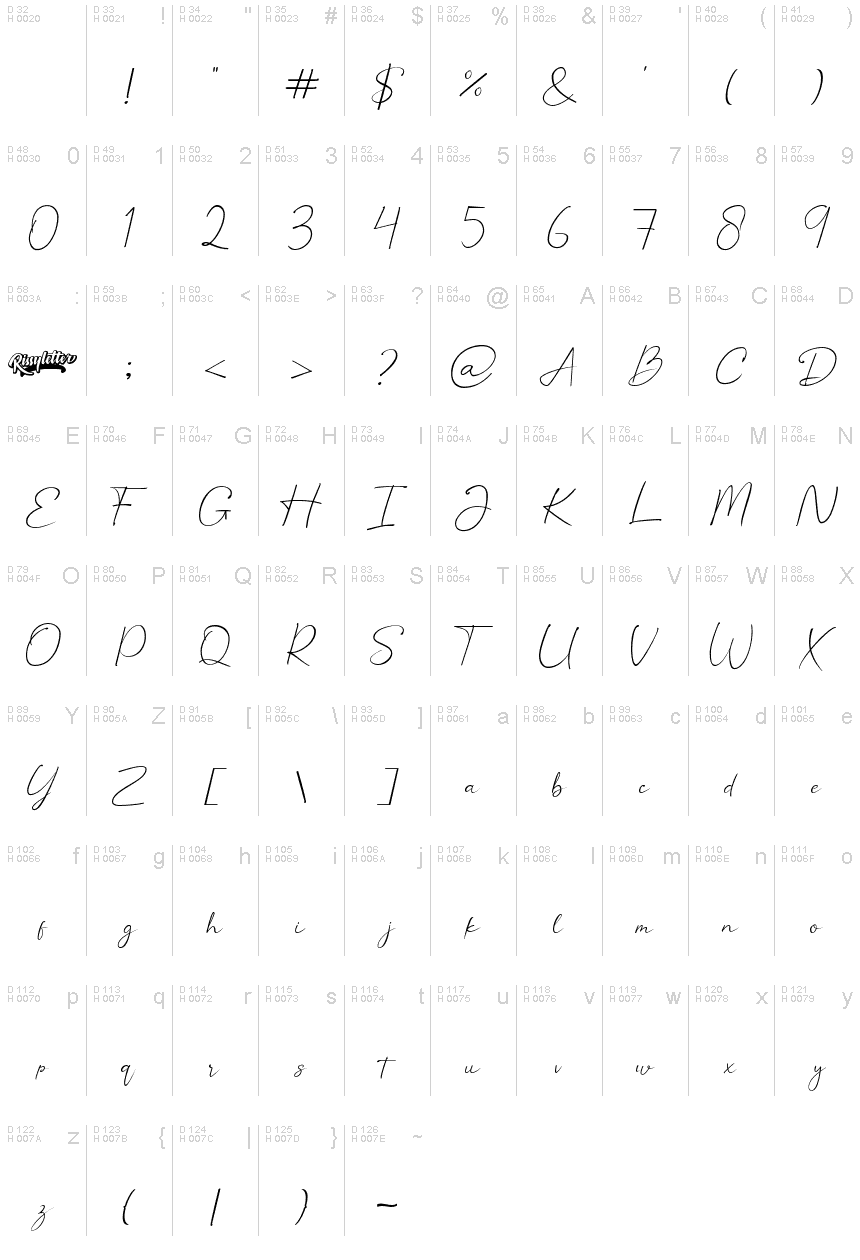
Saintine
The enchanting Saintine font, crafted by the talented Rissyletter Studio, brings a touch of elegance and sophistication to any project. With its light weight, this handwritten typeface exudes grace and fluidity. Ideal for creating ethereal wedding invitations or delicate stationery designs, Saintine adds a whimsical charm that captivates hearts. Its graceful curves lend themselves beautifully to logo designs for luxury boutiques or high-end brands seeking a refined aesthetic. Whether used in digital media or print materials, Saintine effortlessly conveys a sense of romance and sophistication that will leave a lasting impression on your audience.